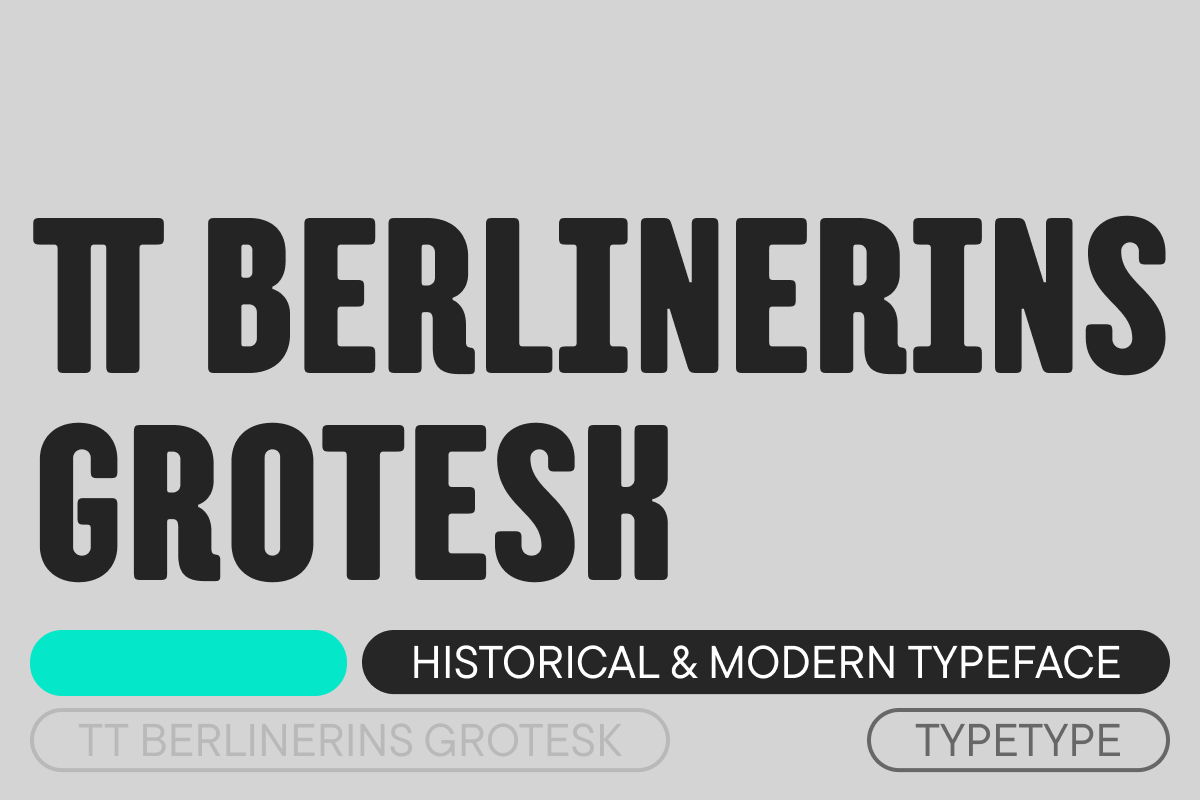
TT Berlinerins Grotesk
TT Berlinerins is a contrast pair of typefaces which is basically our tribute to Berlin. Just like in the city itself where historicity and modernity are intertwined, the elegant script in our font family symbolizes the modern Berlin, and the sans-serif inspired by the wood-type poster types of the first third of the 20th century is responsible for the historic component of the city.